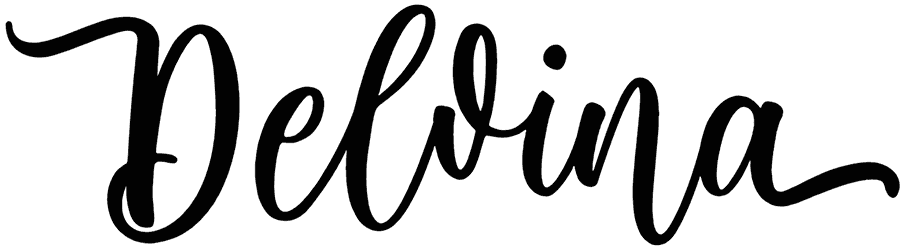
Delvina Font
When you look at Delvina, you want to see it in a romantic movie, wedding card, or friendly letter that succeeds in conveying your true feelings.
This love font, which makes the text somewhat difficult to read, is an ideal option for designers who want to show all their art in font selection and generally avoid the need for side decorations. This script font’s elegance and originality, along with elaborate twists and turns, make it an ideal option for your new project.